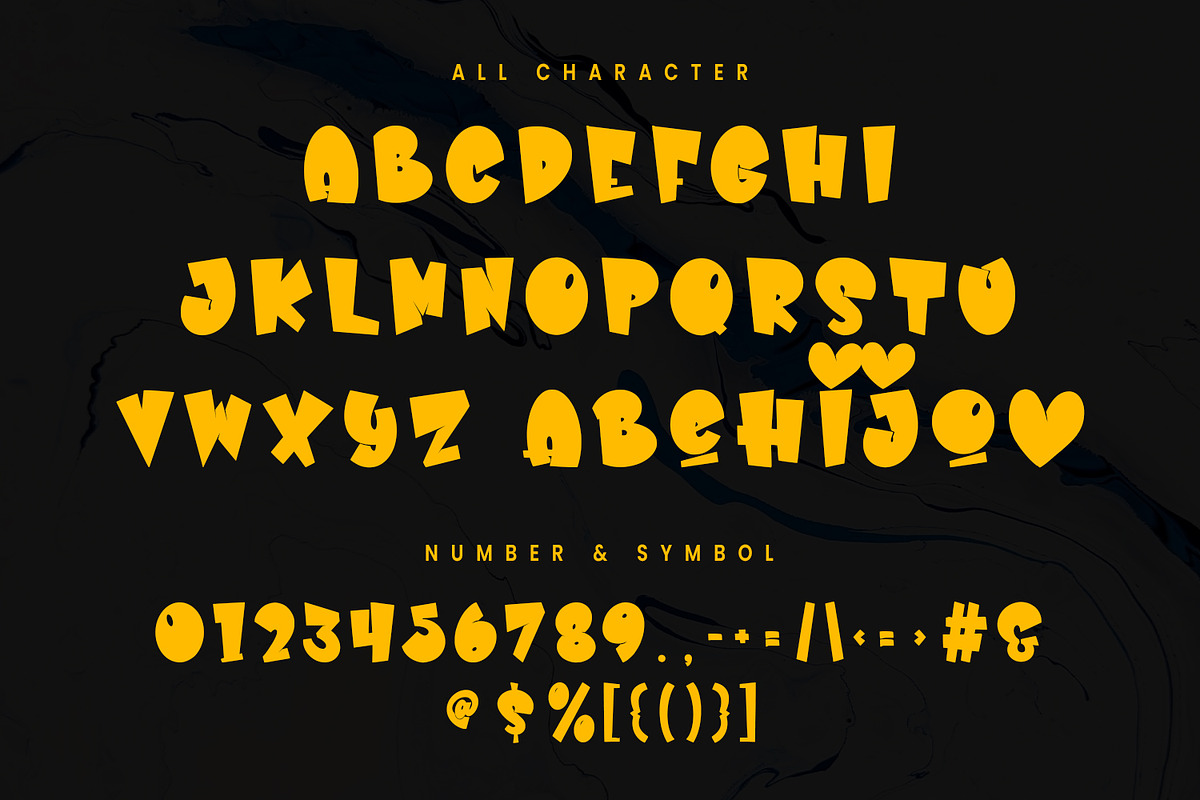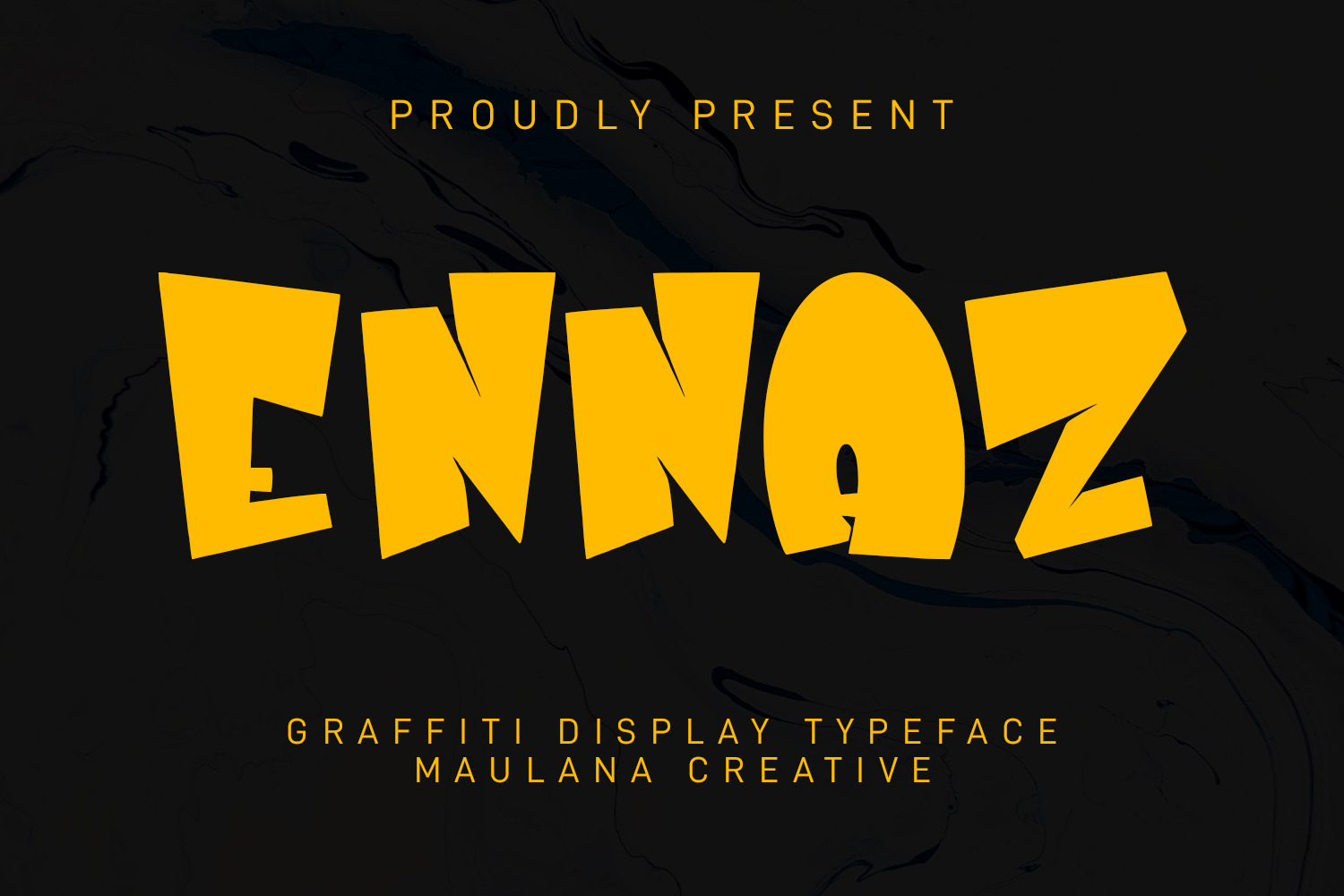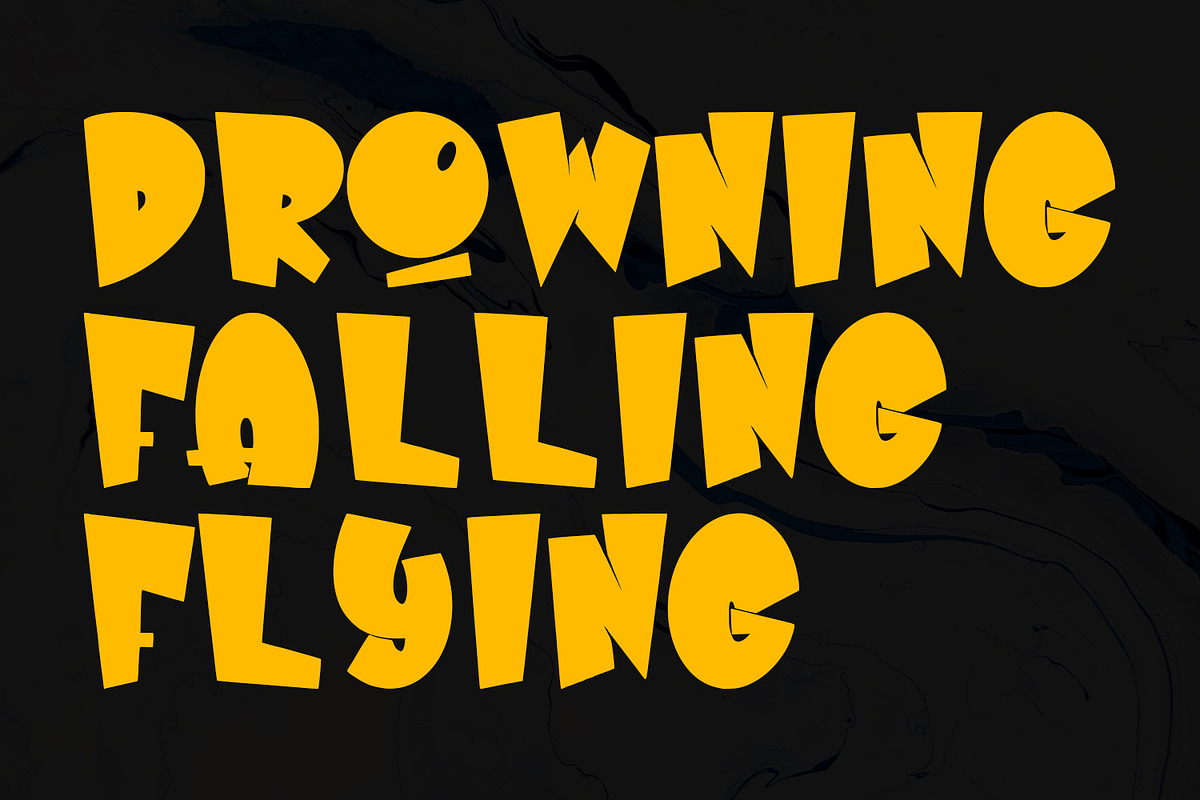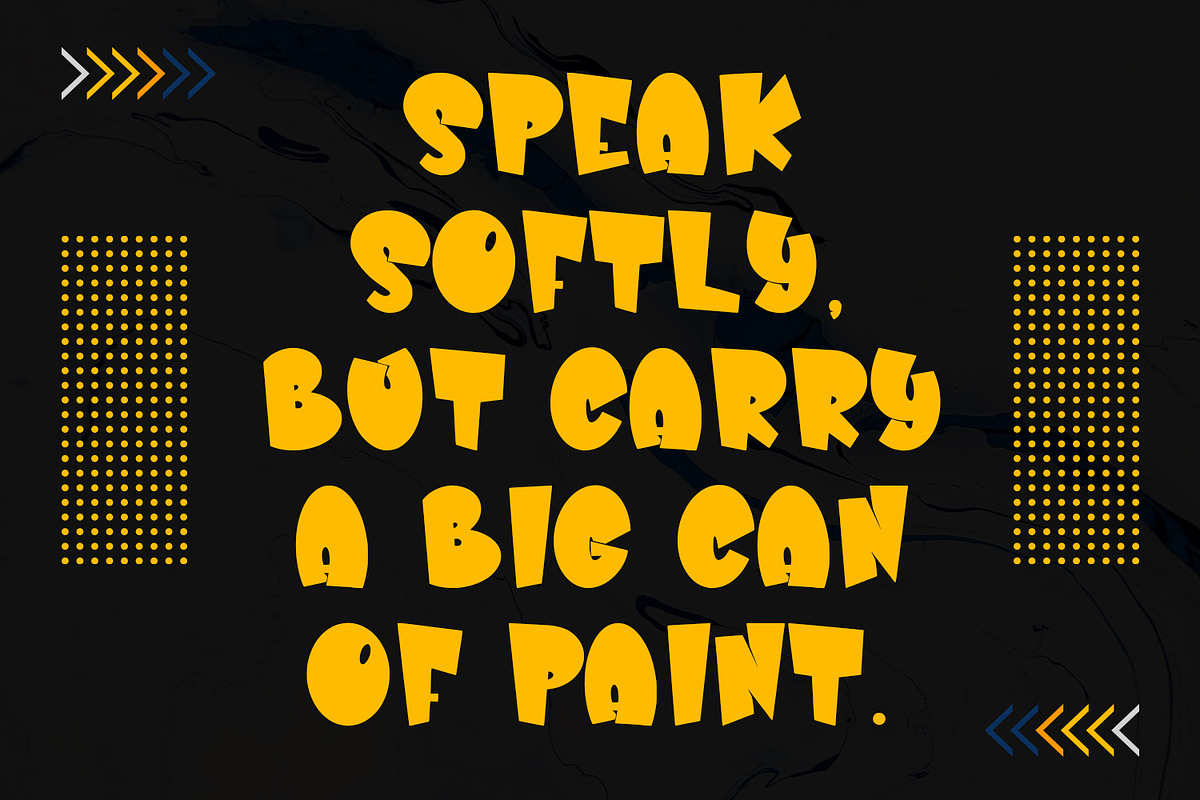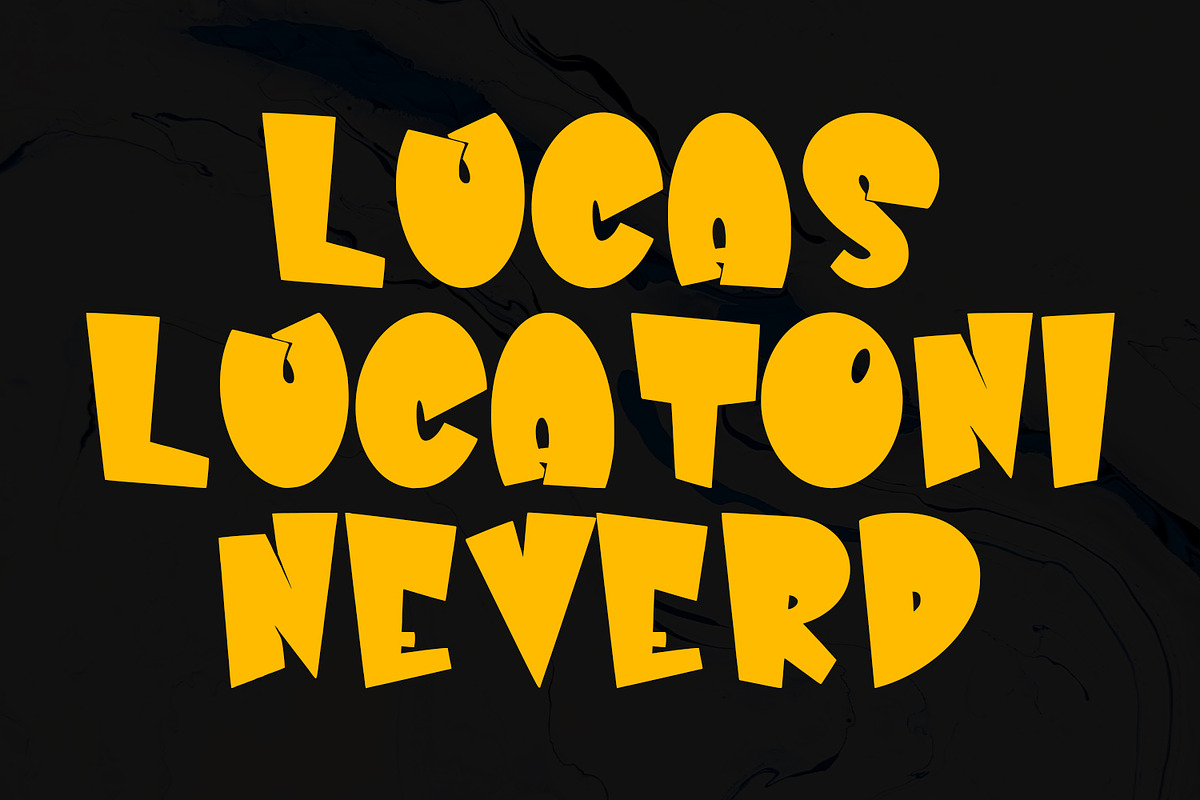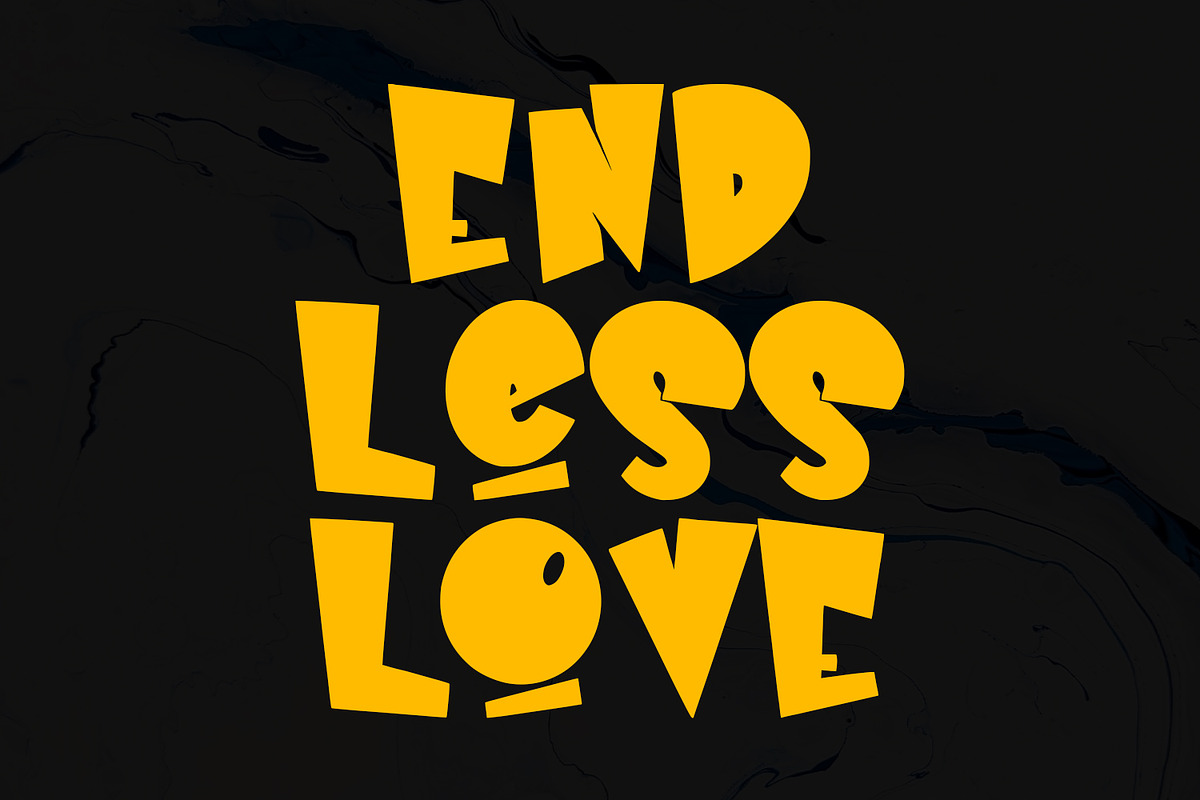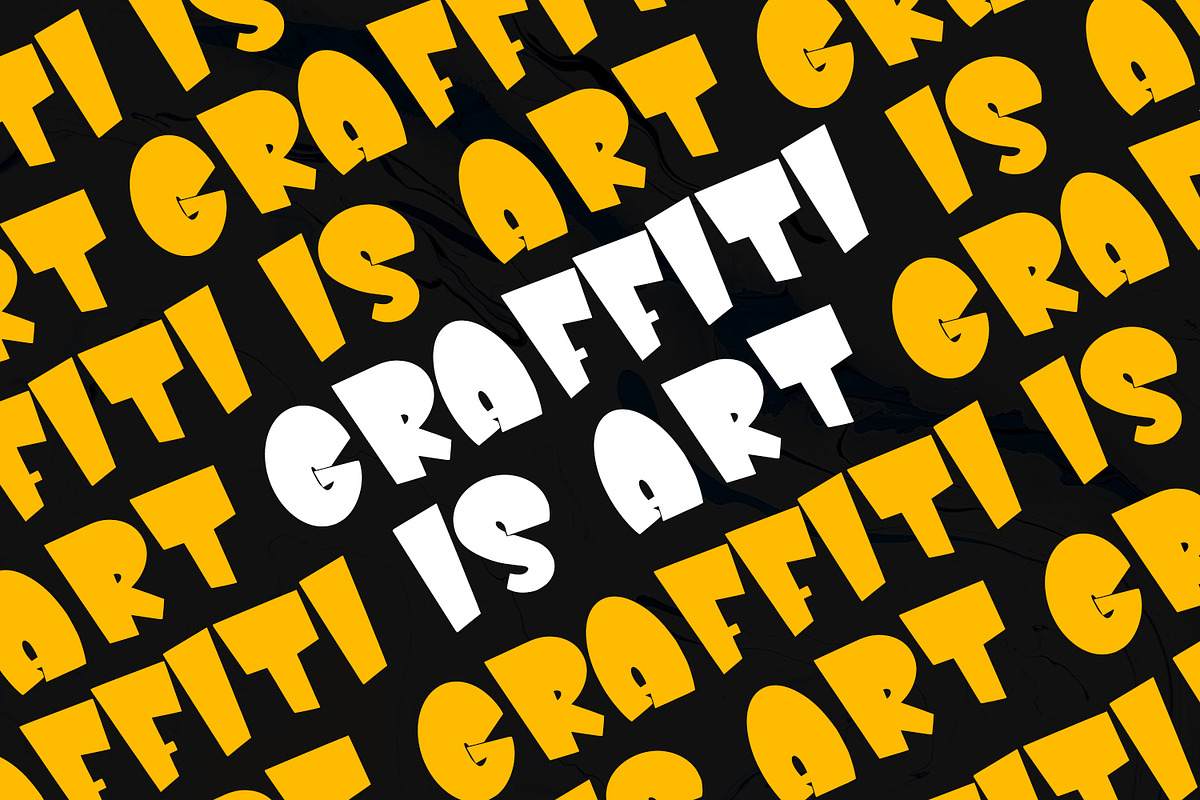
Ennaz Display Font
Ennaz is a modern casual display font. bold stroke, fun character with a bit of ligatures and alternates. To give you an extra creative work. Ennaz font support multilingual more than 100+ language. This font is good for logo design, Social media, Movie Titles, Books Titles, a short text even a long text letter and good for your secondary text font with script or serif. Make a stunning work with Ennaz font.